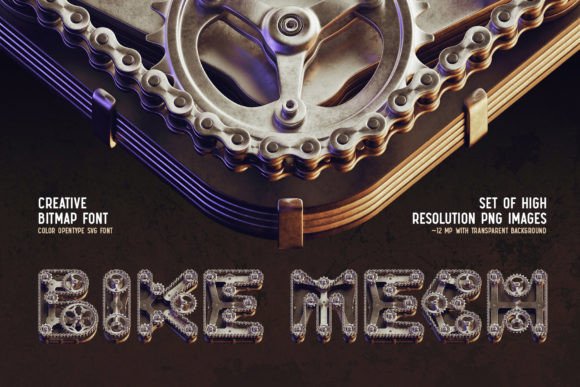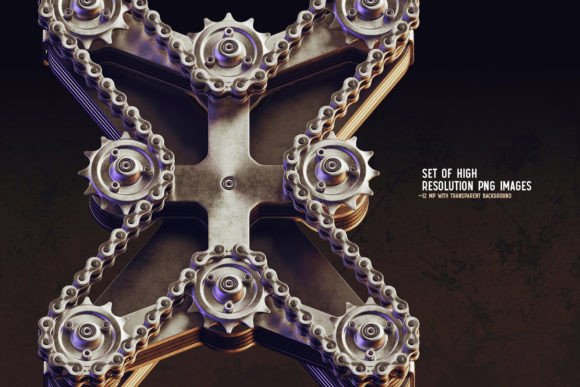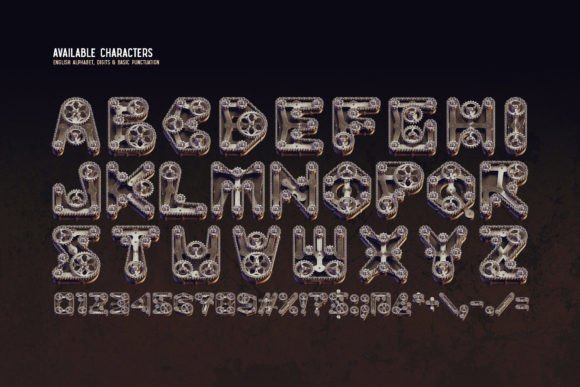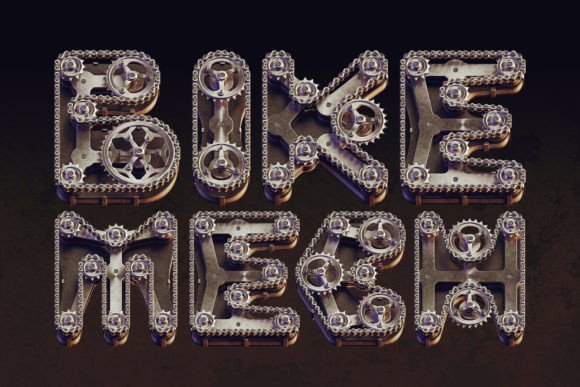
Introducing Bike Mech: A Steampunk-Inspired Font Set for Designers and Crafters
Are you tired of using the same old fonts in your designs? Look no further! We’re excited to introduce Bike Mech, a unique steampunk-style font set that’s sure to add a touch of industrial chic to your projects. This high-quality typeface is made up of 3D rendered bike gears and chains, giving it a distinctive and eye-catching look.
What is Bike Mech?
Bike Mech is a color bitmap OpenType-SVG font that can be used just like a regular OTF font. But what really sets it apart is its innovative use of bike parts to create a steampunk-inspired aesthetic. The font is made up of intricately designed bike gears and chains, which are carefully crafted to create a unique and visually striking effect.
Key Features of Bike Mech
- High-quality 3D rendering: Each character is carefully crafted using 3D rendering techniques, ensuring a crisp and clear appearance.
Currently, Bike Mech supports the English language and basic punctuation only. We recommend checking out the screenshot provided to see the full range of available characters.
- Unique and eye-catching design: The steampunk-inspired aesthetic of Bike Mech is sure to add a touch of industrial chic to your designs.
- High-quality rendering: The 3D rendered characters ensure a crisp and clear appearance, even at large sizes.
- Versatile usage: Bike Mech can be used in a range of design applications, from crafting and scrapbooking to graphic design and digital art.
Get Creative with Bike Mech
Whether you’re a designer, crafter, or simply someone who loves unique and creative fonts, Bike Mech is the perfect choice for your next project. With its innovative steampunk-inspired design and high-quality rendering, this font set is sure to add a touch of industrial chic to your designs.